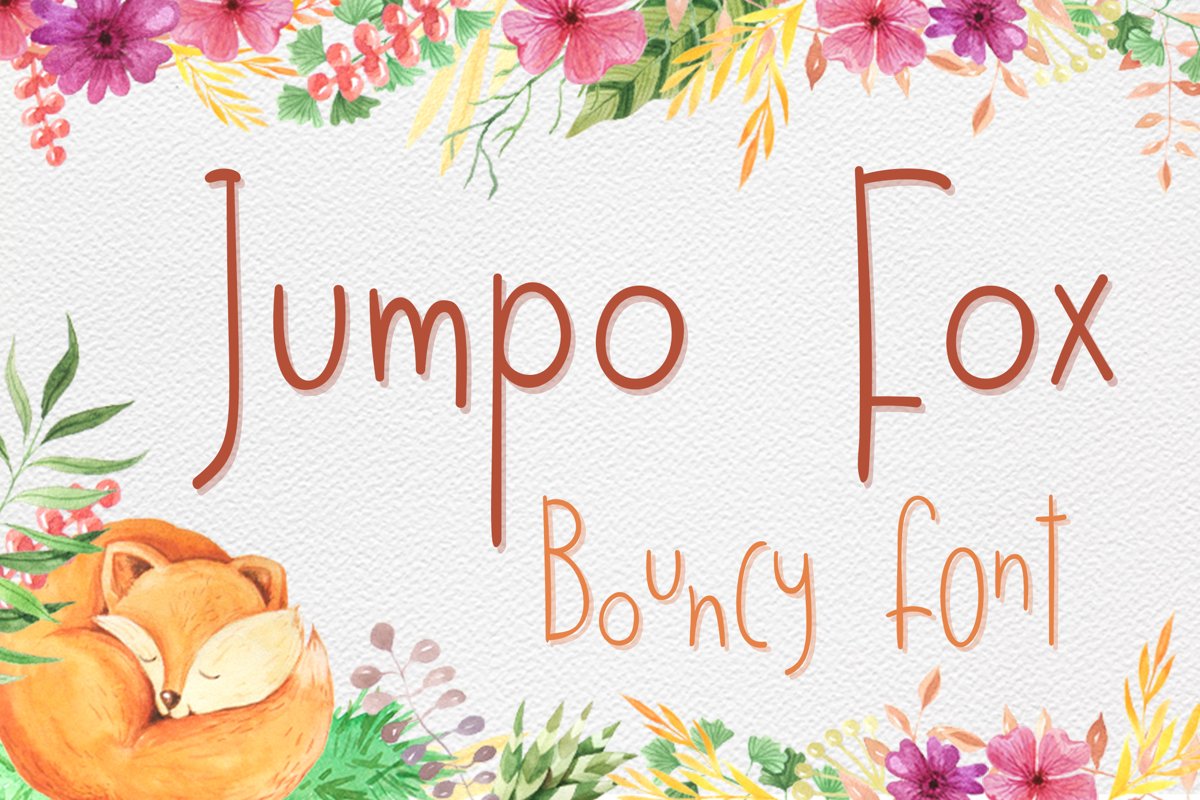
Jumpo Fox - thin bouncy font
Jumpo Fox is a fun decorative handwritten font family. It includes 2 styles - bottom one and middle one with different lowercase characters and baselines. Both font have 3 additional lowercase stilystic sets.
Switched-on Contextual Alternates OpenType feature automatically alternates letters between basic and alternative set. You will get a jumping baseline and different size symbols with this feature. You need install otf files to get access to all features. PUA encoded.
Font siutable for DIY projects, invitations, fun greeting cards, product packaging, decorative printing and much more!